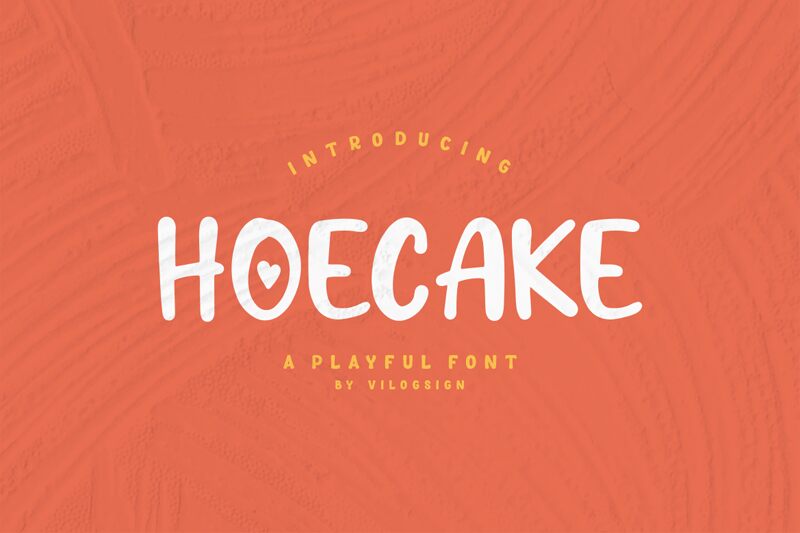
Hoecake, a delightful creation by vilogsign, stands out with its cartoon-style charisma and semi-bold weight. Its playful contours and buoyant design evoke a sense of whimsy and fun, making it an excellent choice for projects that aim to capture attention with a touch of lightheartedness.
The font's display type classification means it’s crafted not just for legibility but also to make a statement. Whether used in children’s books, animated movie titles, or creative branding for lifestyle products, Hoecake brings an aesthetic appeal that is both engaging and eye-catching.
Its unique style is well-suited to infuse personality into your designs while maintaining readability and impact.